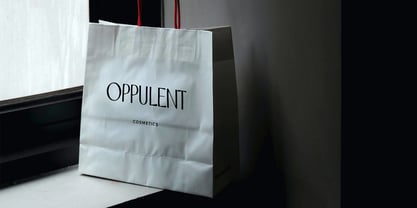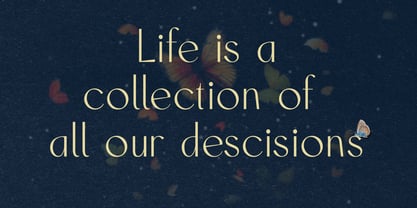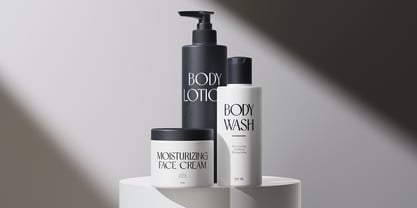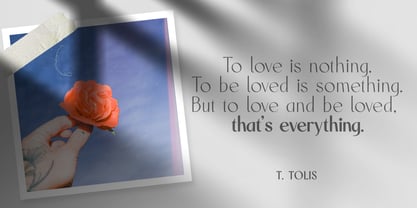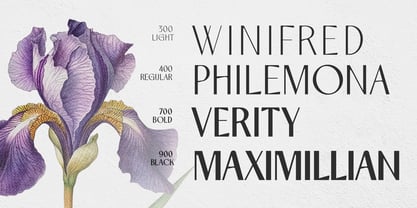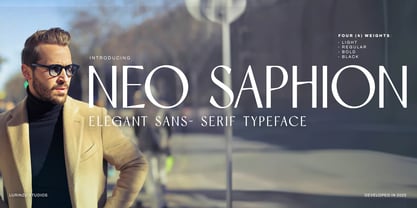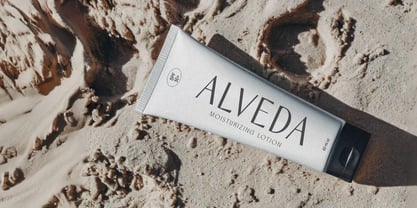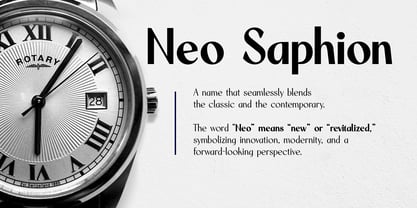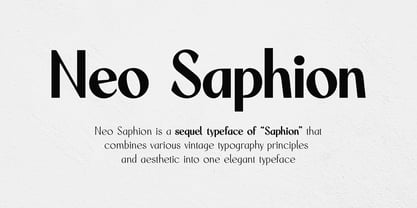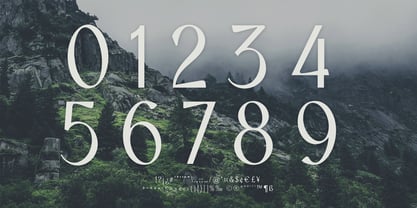
Neo Saphion
by Lurinzu Studios
The Neo Saphion Font Family was designed by Lorenzo Gabriel Martinez and published by Lurinzu Studios. Neo Saphion contains 4 styles and family package options.
"Neo Saphion" is an elegant vintage-inspired typeface with a mixture of "Art Deco and other various vintage type influences."
This font is developed to function as a display typeface and an occasional body typeface. The softness and the curves give the design a luxurious and elegant feel
Key Features:
• Legibility: The font is designed to be easy to read
• Style: The font is elegant and modern, with a nod to vintage typography
• Functionality: The font can be used for branding, logos, weddings, fashion, and other designs
* This font includes letters, numbers, multilanguage support, and marks.
Lurinzu Studios is a one man digital type - foundry based on Bacoor, Cavite Philippines started by Lorenzo Martinez in the year 2019. Expressive and display fonts are the main staples produced in this digital foundry.The main vision for this foundry is to create typefaces that could express the emotion of each message and letters as they are intended to be read.